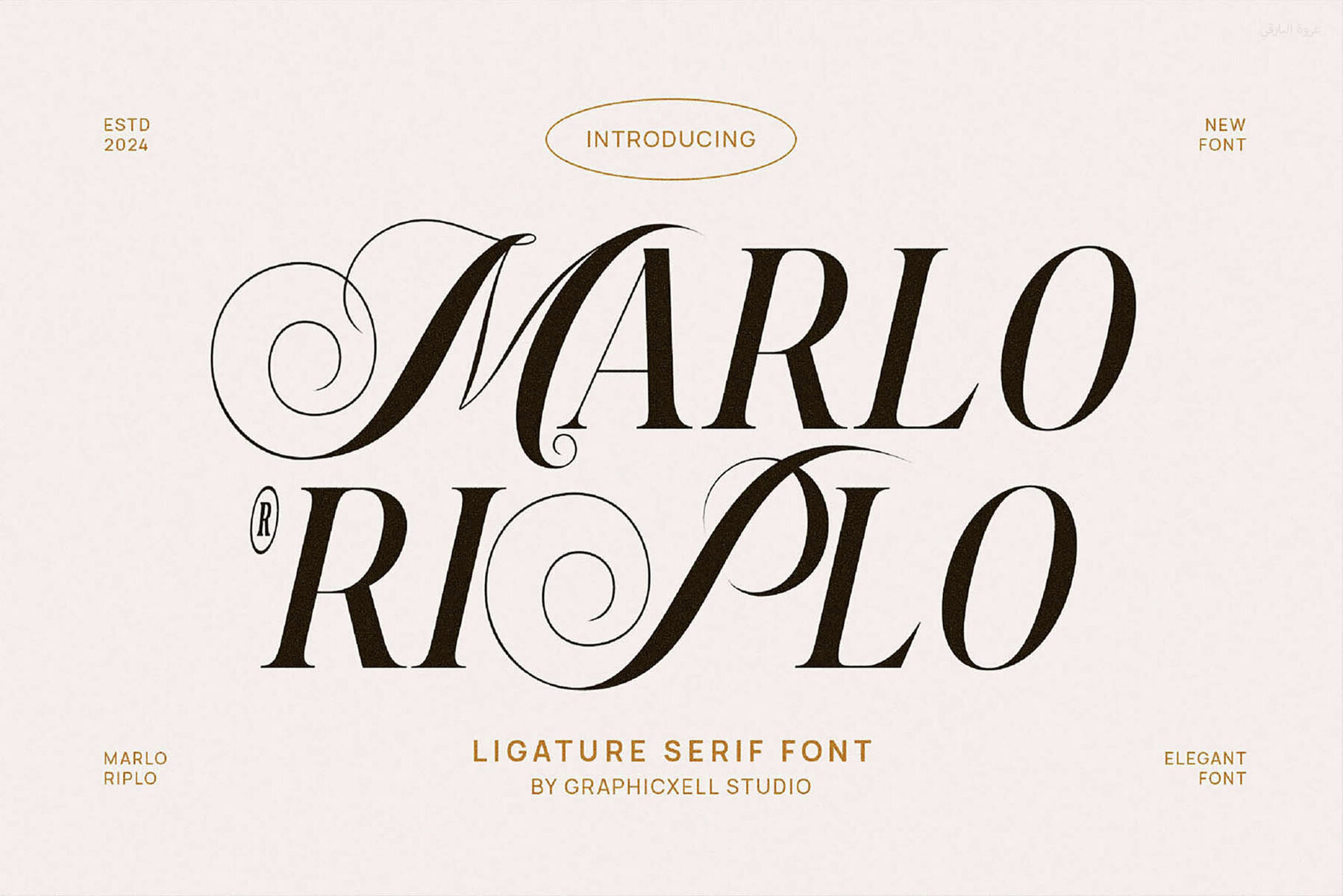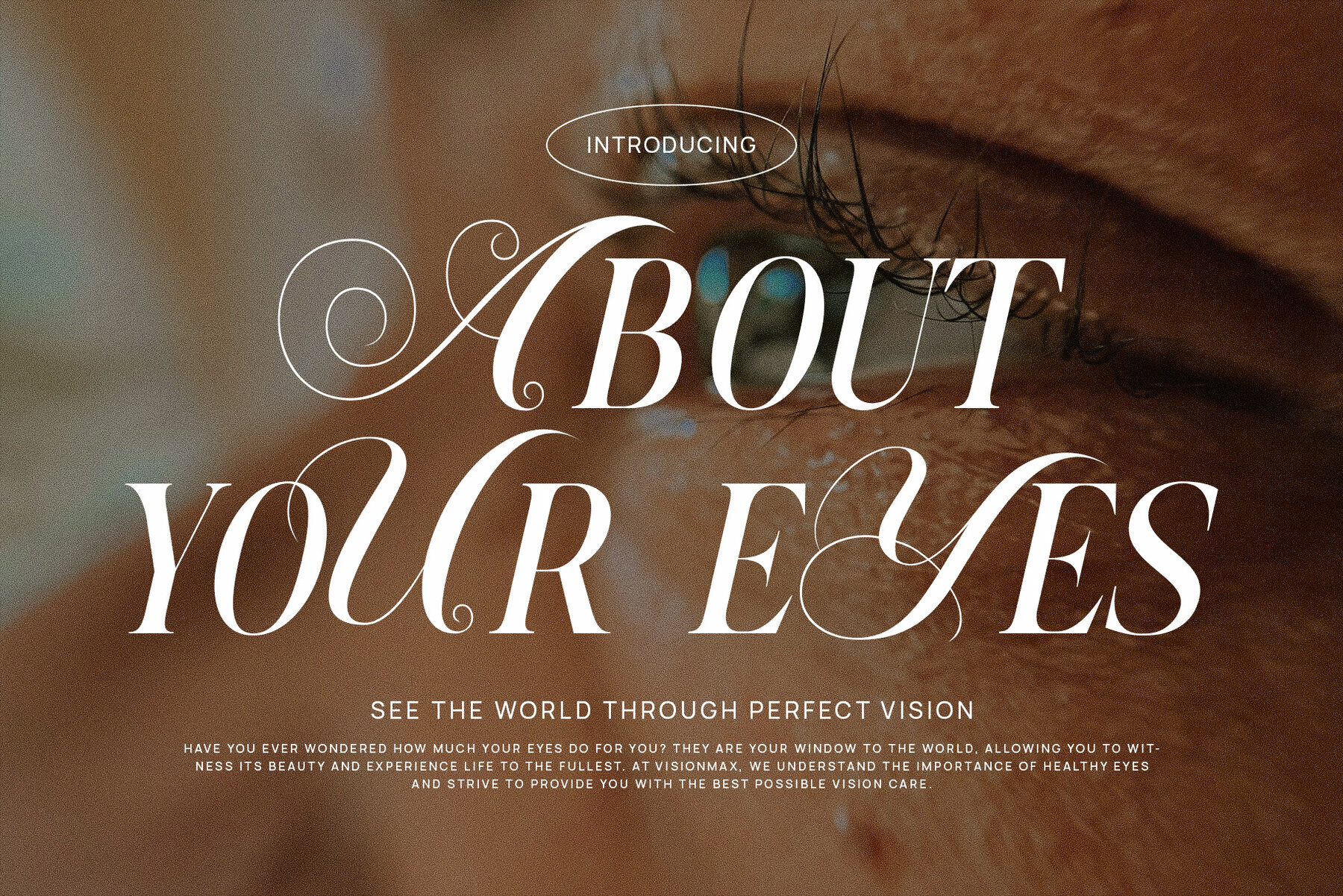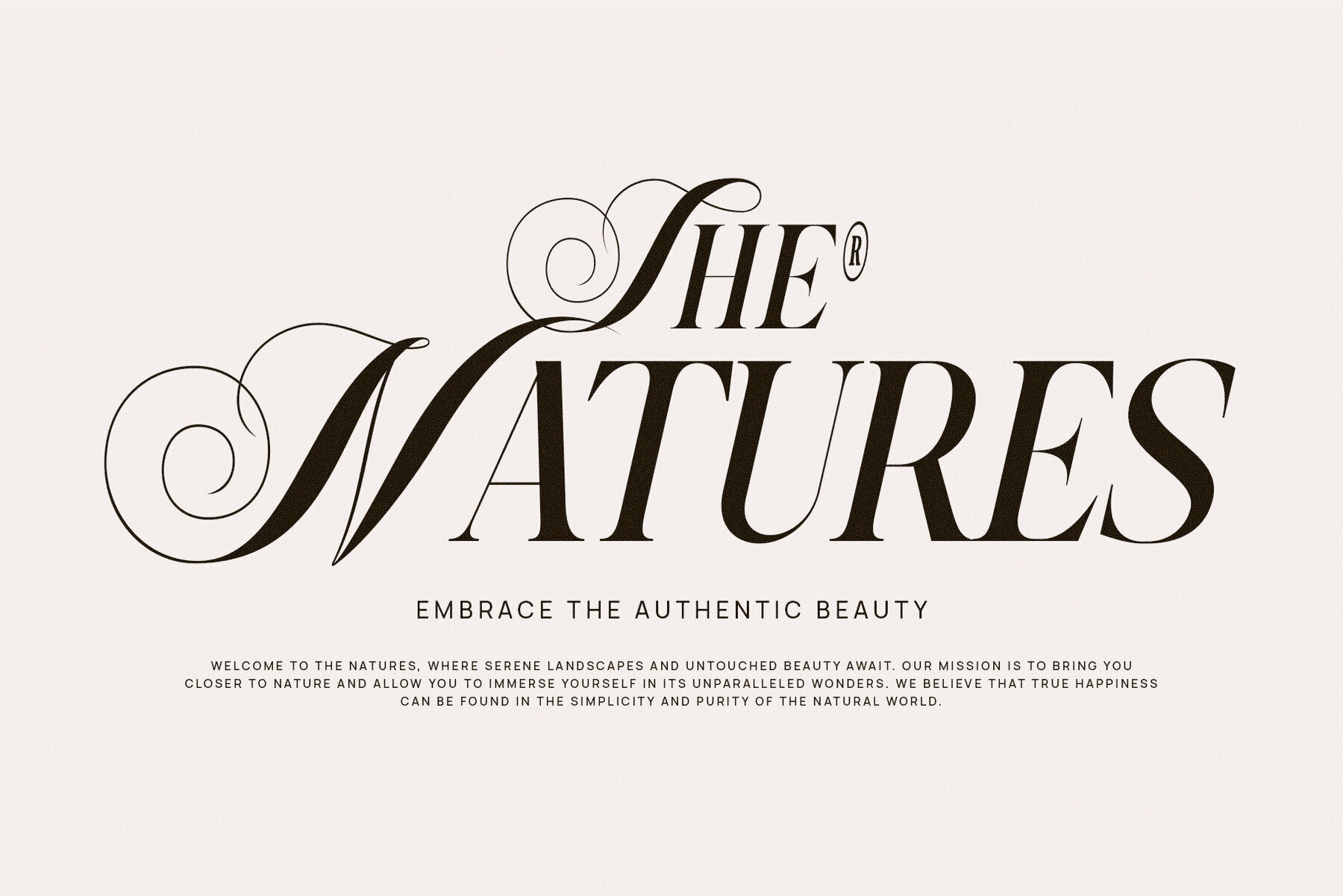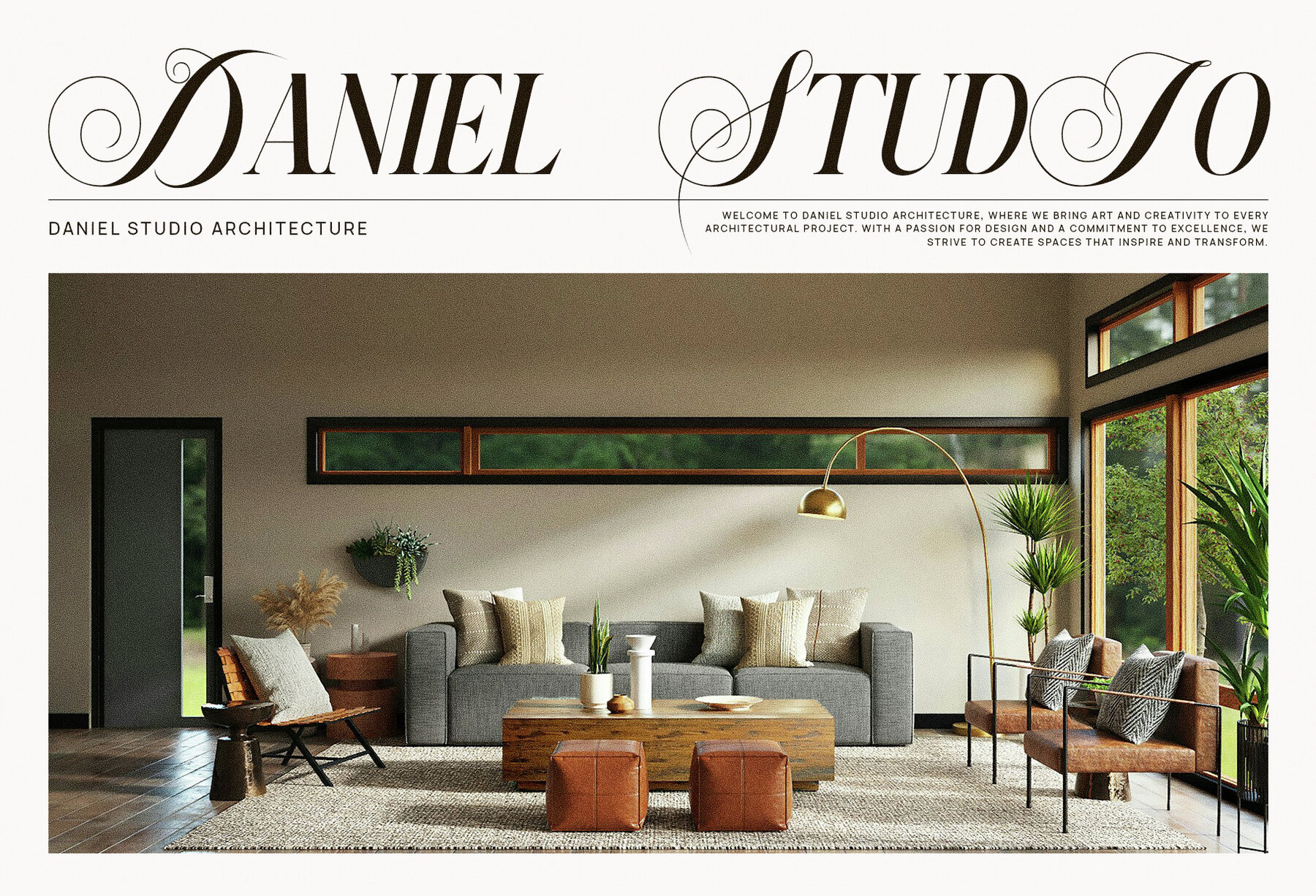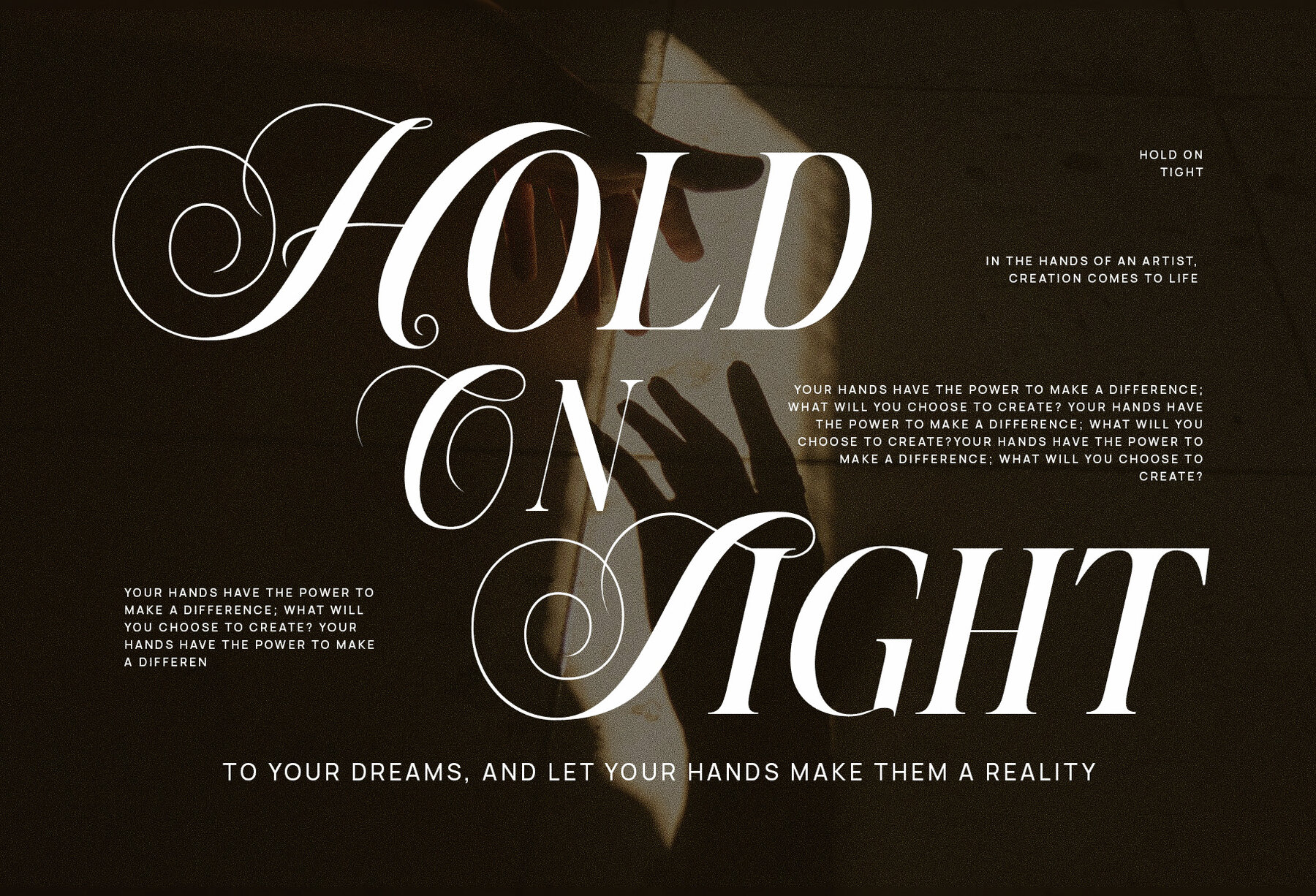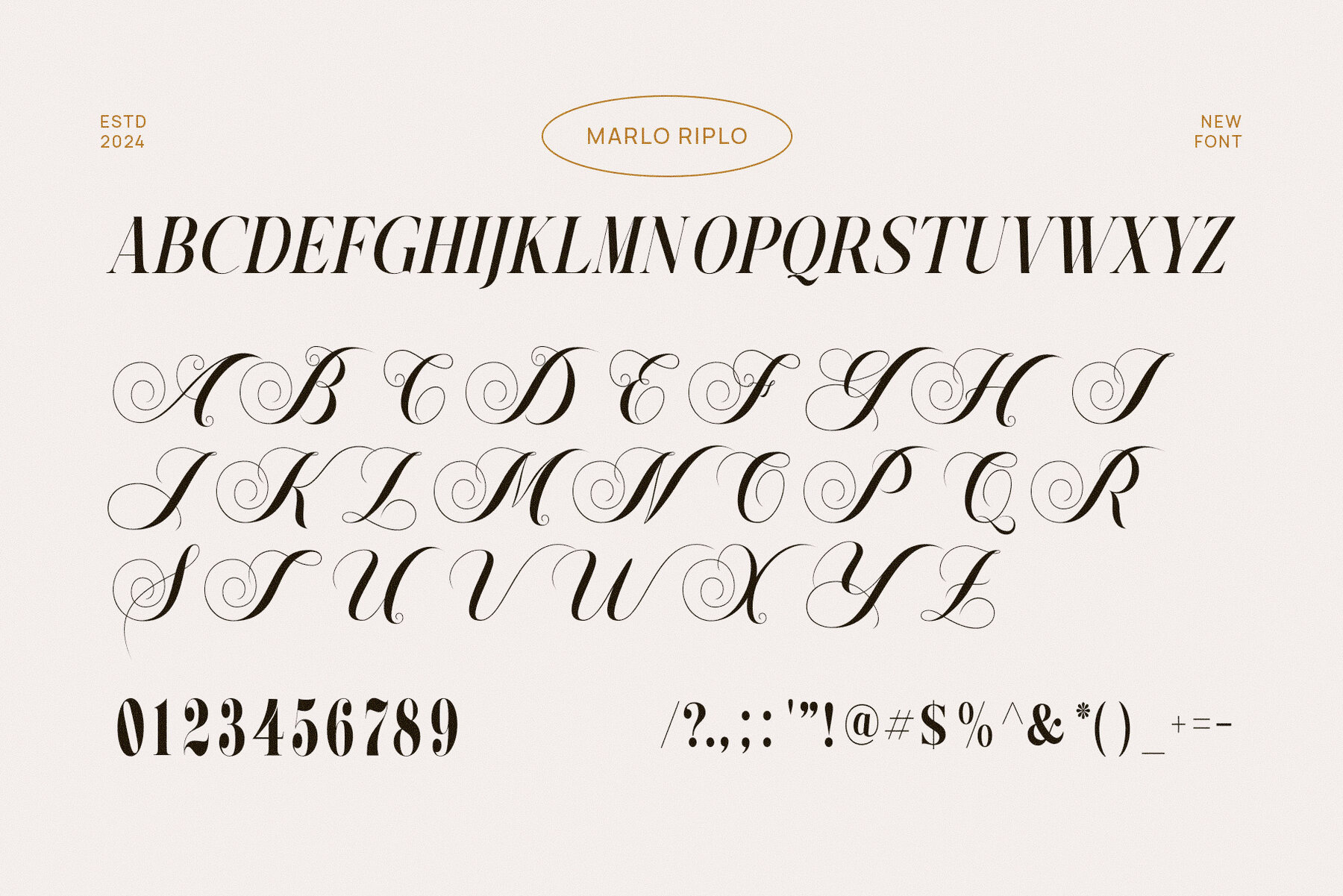
Marlo Pirlo Font
Marlo Pirlo Regular
This typeface features a refined calligraphic script style, reminiscent of traditional handwriting found in formal invitations and classical literature. Its elegant swashes and ornamental flourishes make it ideal for applications requiring a touch of sophistication and personal touch. Graphic designers might use this font for wedding stationery, event announcements, or any project needing a classical and artistic feel.